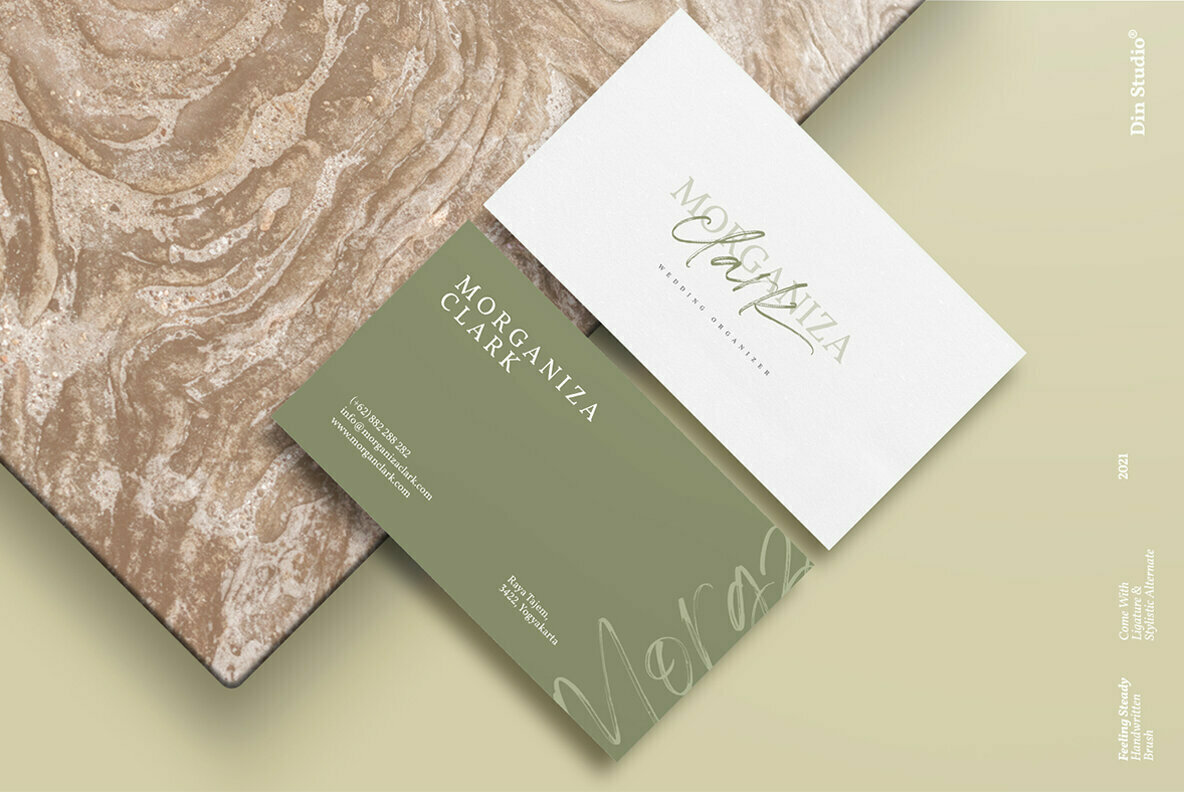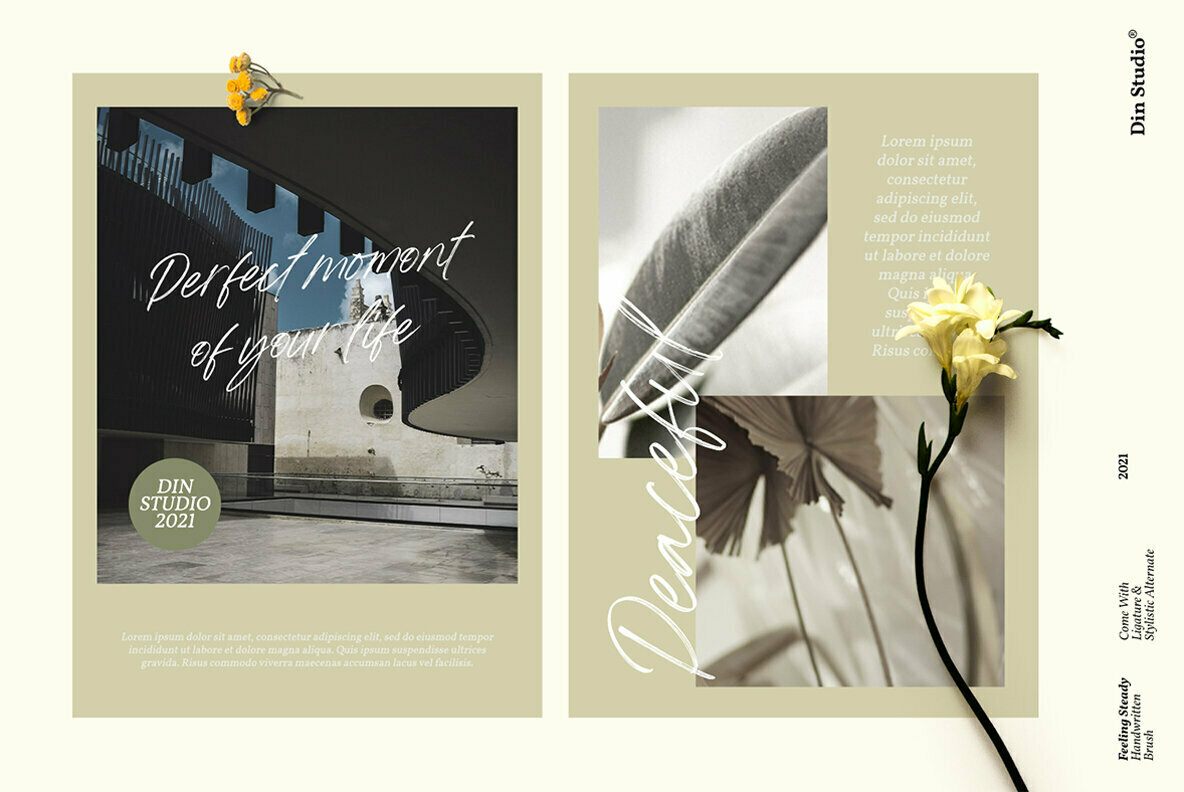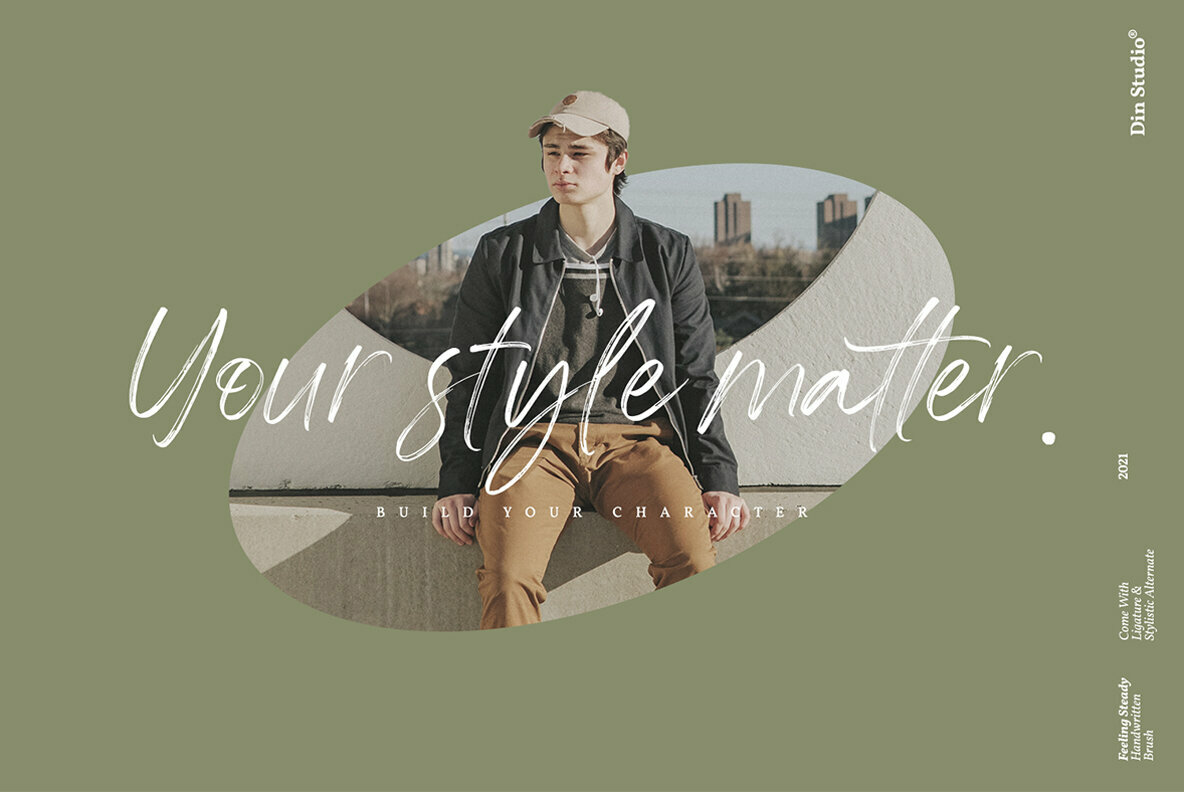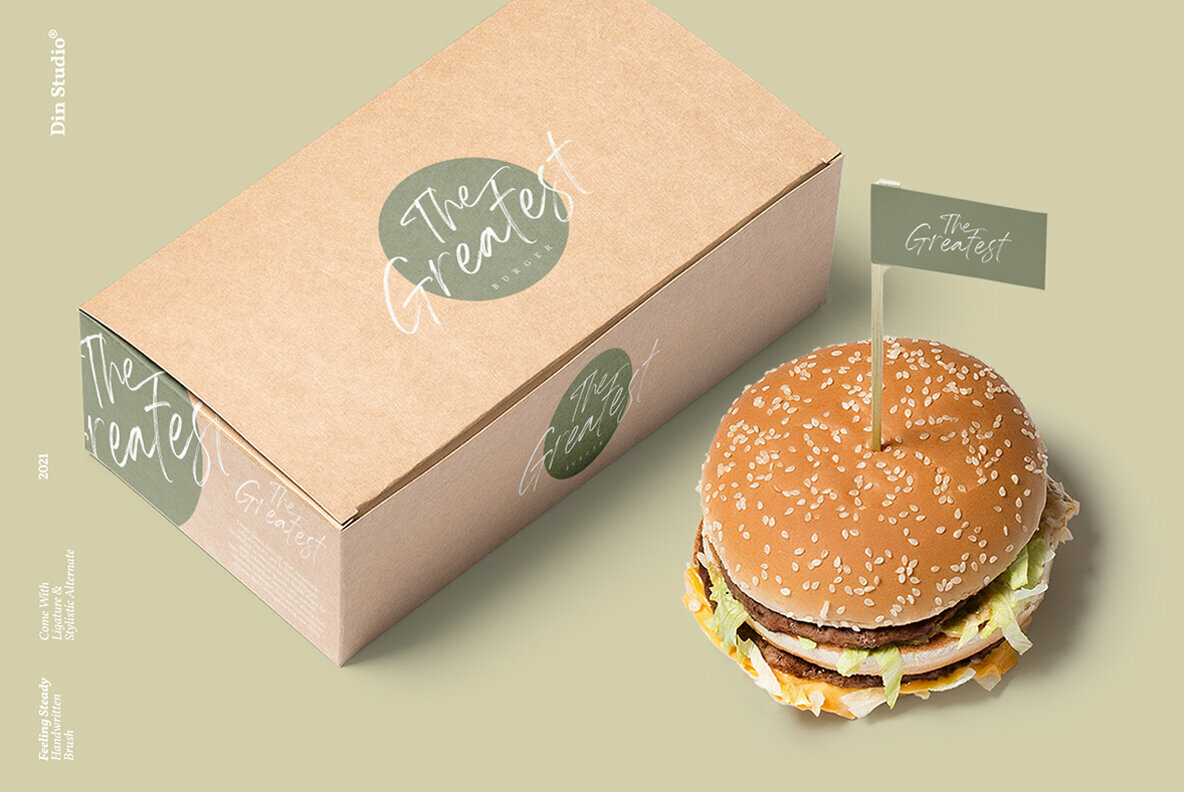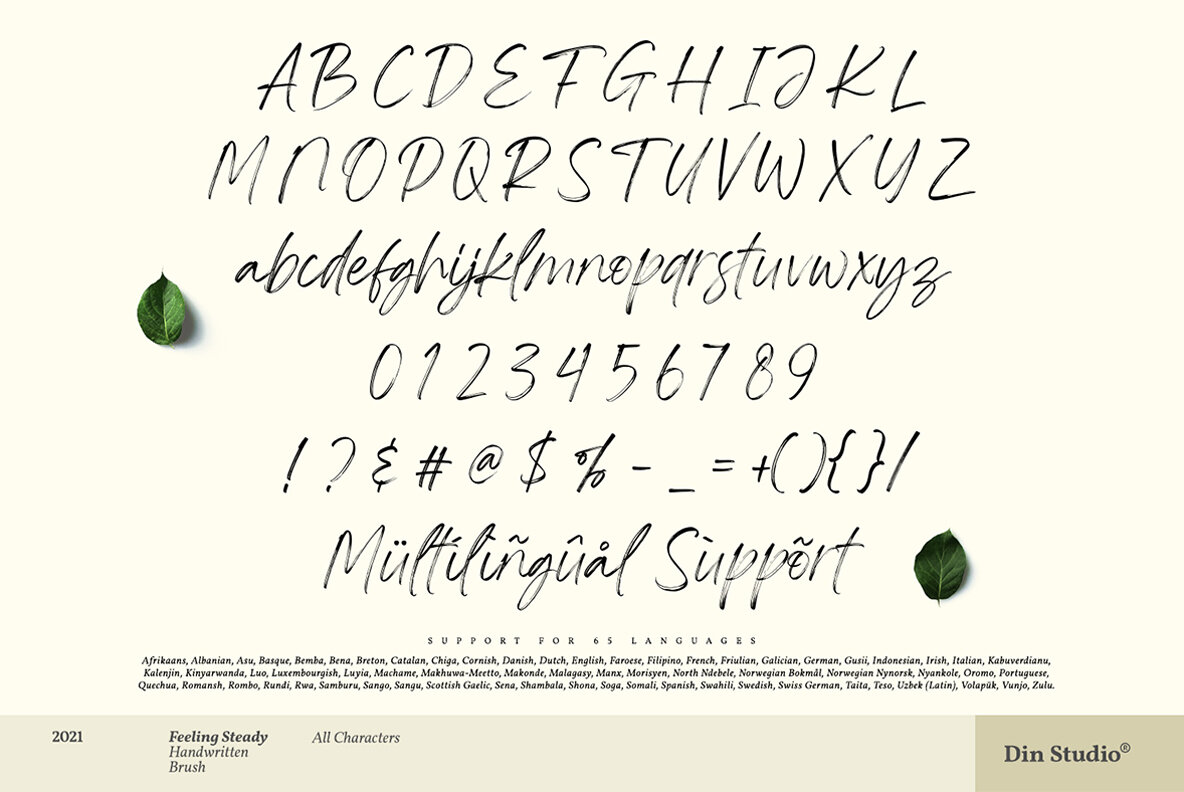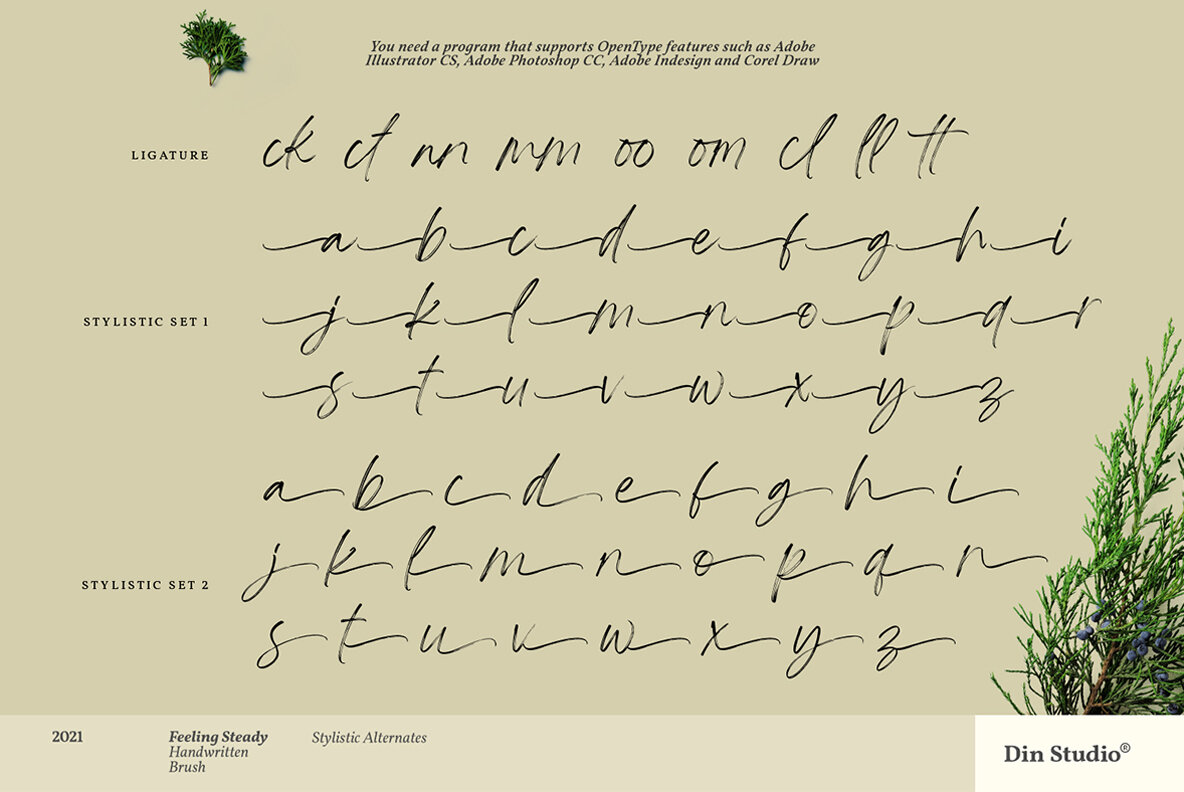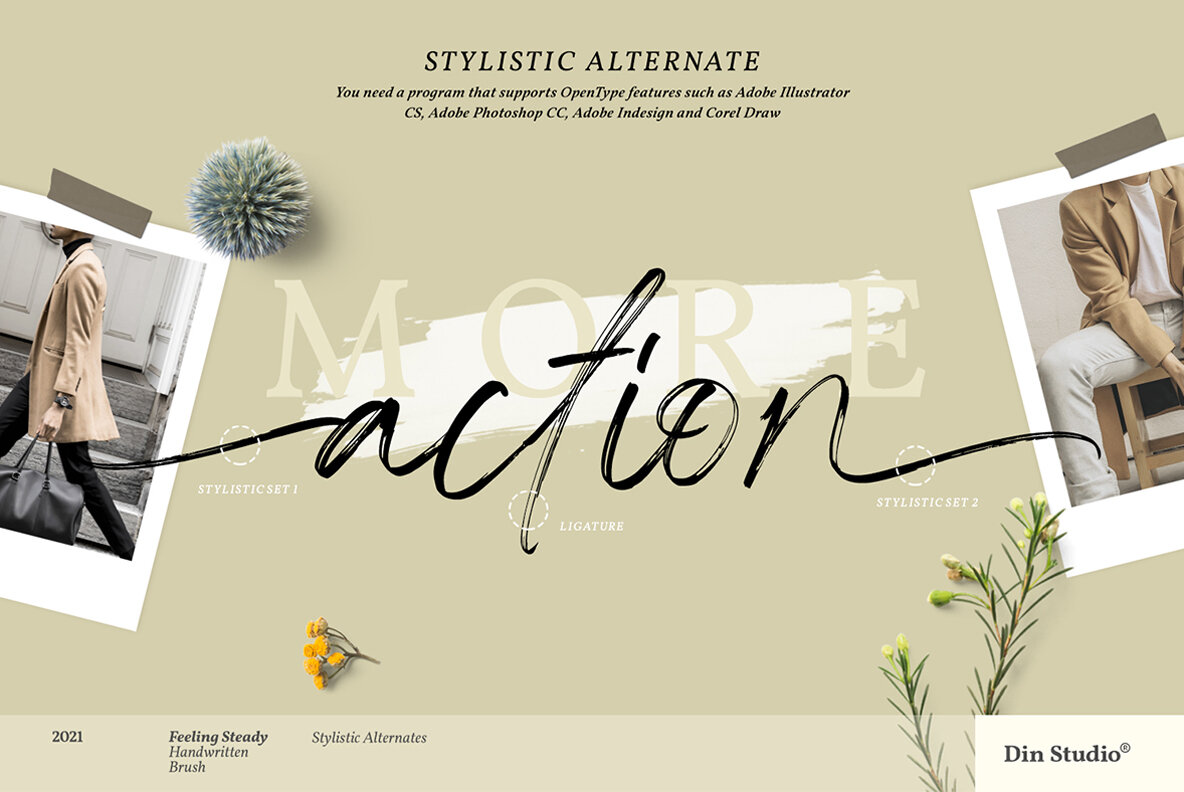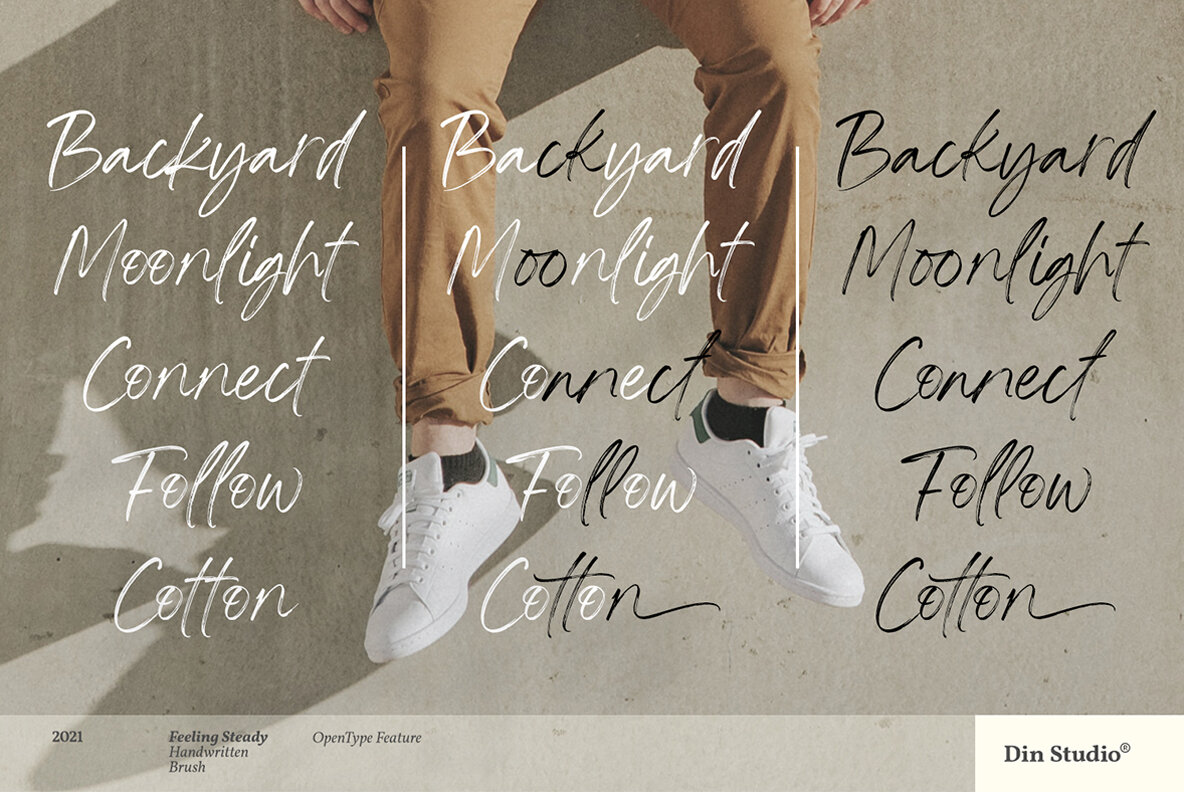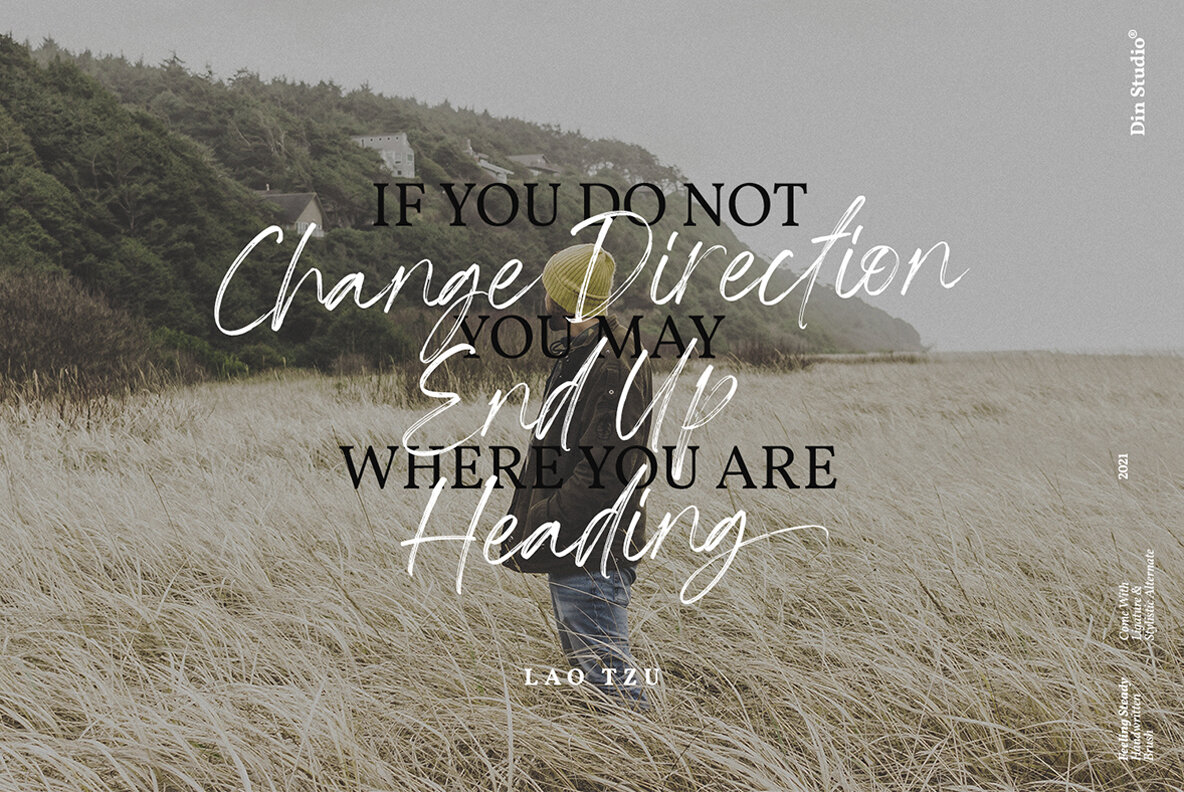
Feeling Steady Font
Feeling Steady
Feeling Steady is a charming signature font by Din Studio that radiates sophistication and versatility. With its elegant handcrafted style, this typeface is an ideal choice for a wide array of projects, including website design, social media branding, and printed materials.Feeling Steady: Elegant Handmade Signature Font
Whether enhancing digital content or adding flair to print products, Feeling Steady brings a distinctive elegance to each project.